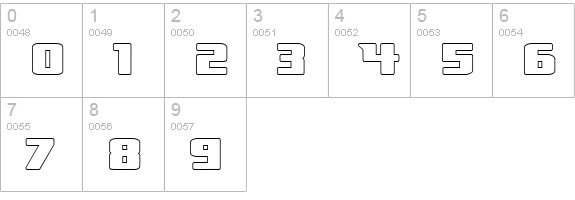
Introducing Broad Daylight font - a versatile and modern typeface that effortlessly blends sophistication with a touch of playfulness. This font exudes a sense of elegance and charm, making it perfect for a wide range of design projects. With its clean lines and stylish curves, Broad Daylight font is sure to make your text stand out and capture attention. Whether you're creating a logo, designing a website, or working on a branding project, this font is sure to elevate your design to the next level. The best part? Broad Daylight font is completely free to download at FontsMarket.com. So go ahead and add this stunning font to your collection today and bring a touch of class to your next project.